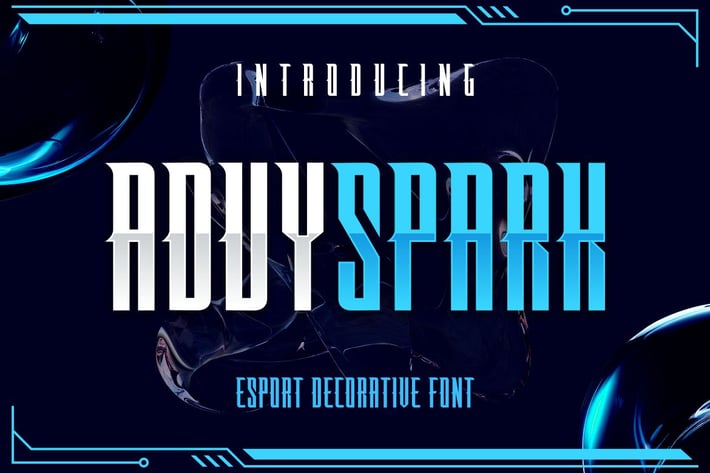
Aduyspark Font
Introducing Aduyspark , a cool and elegant modern Decorative font. Elegant font feel. This font gives you a beautiful and modern atmosphere. suitable for posters, book covers, cards, merchandise, etc.